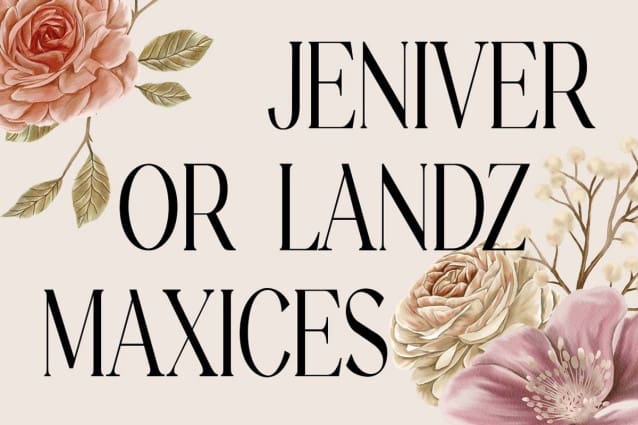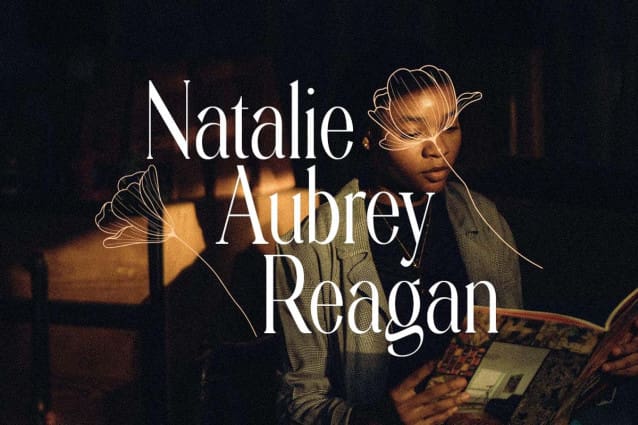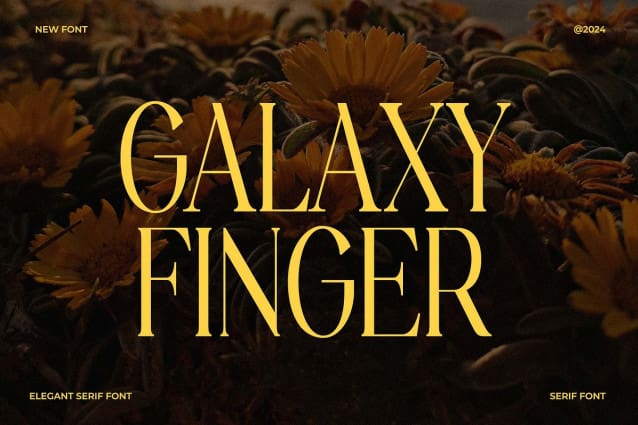
Galaxy Finger Font
Galaxy Finger Font – Elegant Serif Font. The modern display font feels beautiful classy, elegant, and stylish. This font is ideally suited for a wide variety of projects, such as signature, stationery, logo, wedding, typography quotes, magazine or book covers, website headers, branding, and more. Also, fashion-related branding or editorial design displays both masculine and feminine qualities.